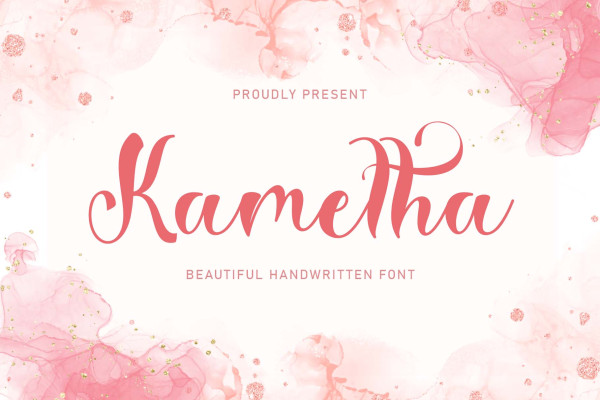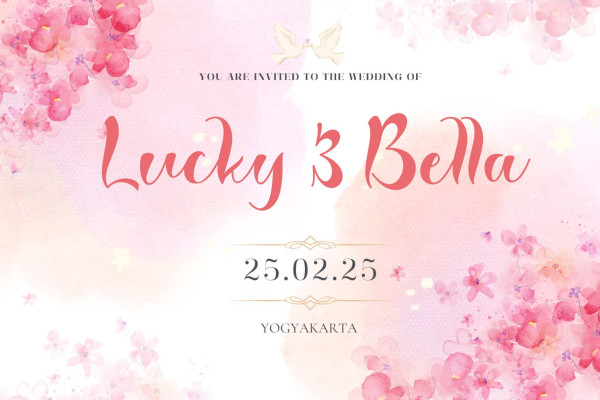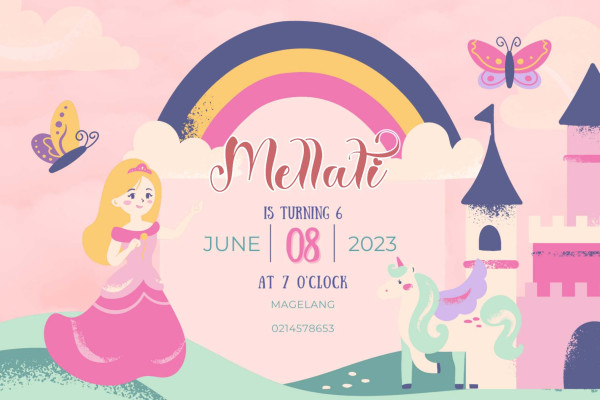
Kametha Font
Kametha Font is a beautiful and elegant handwritten font. This font is equipped with uppercase, lowercase, numerals, punctuation, and multilingual support. It is suitable for Christmas, summer, the 4th of July, graduation, a wedding, engagement and others.